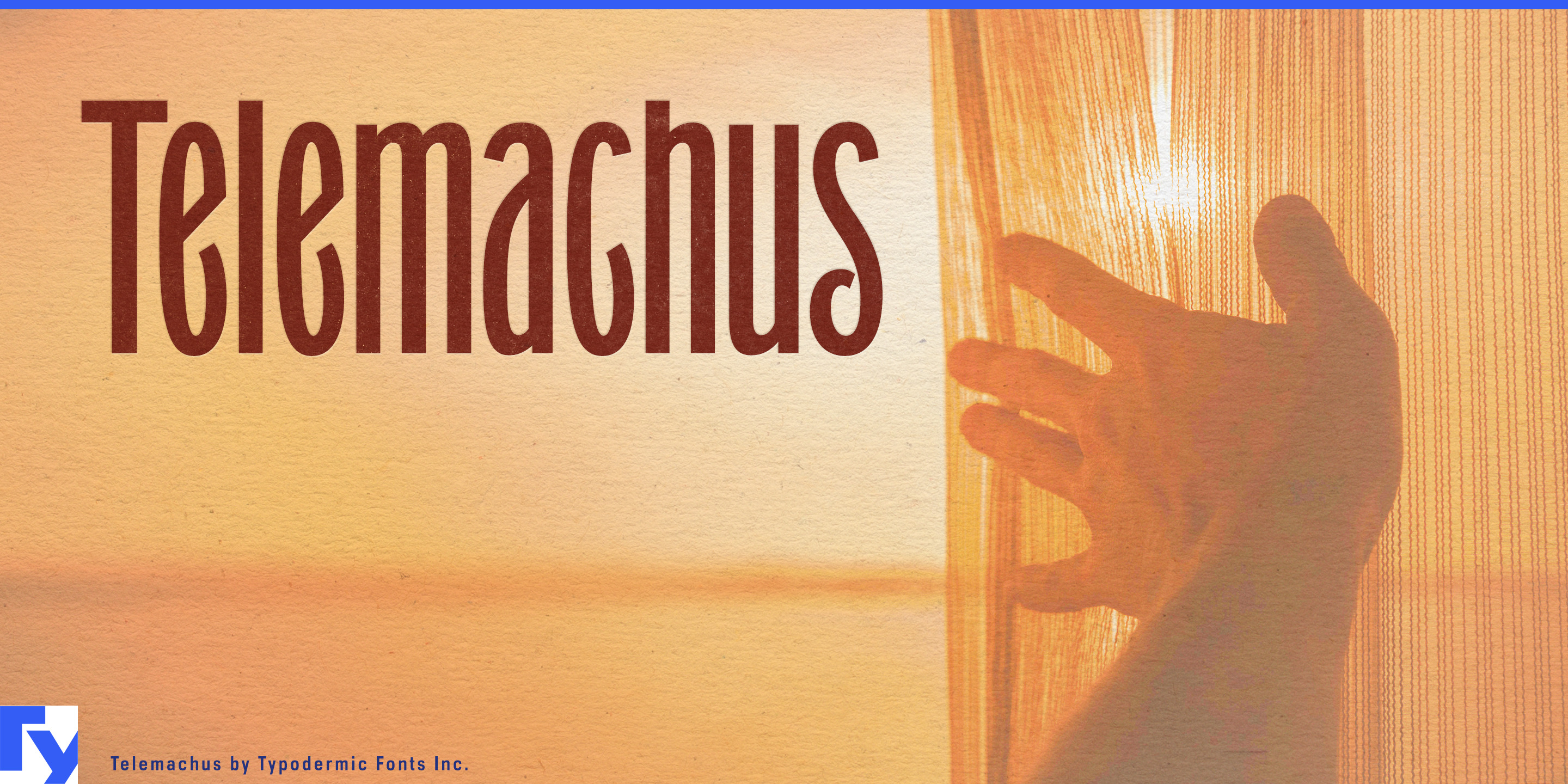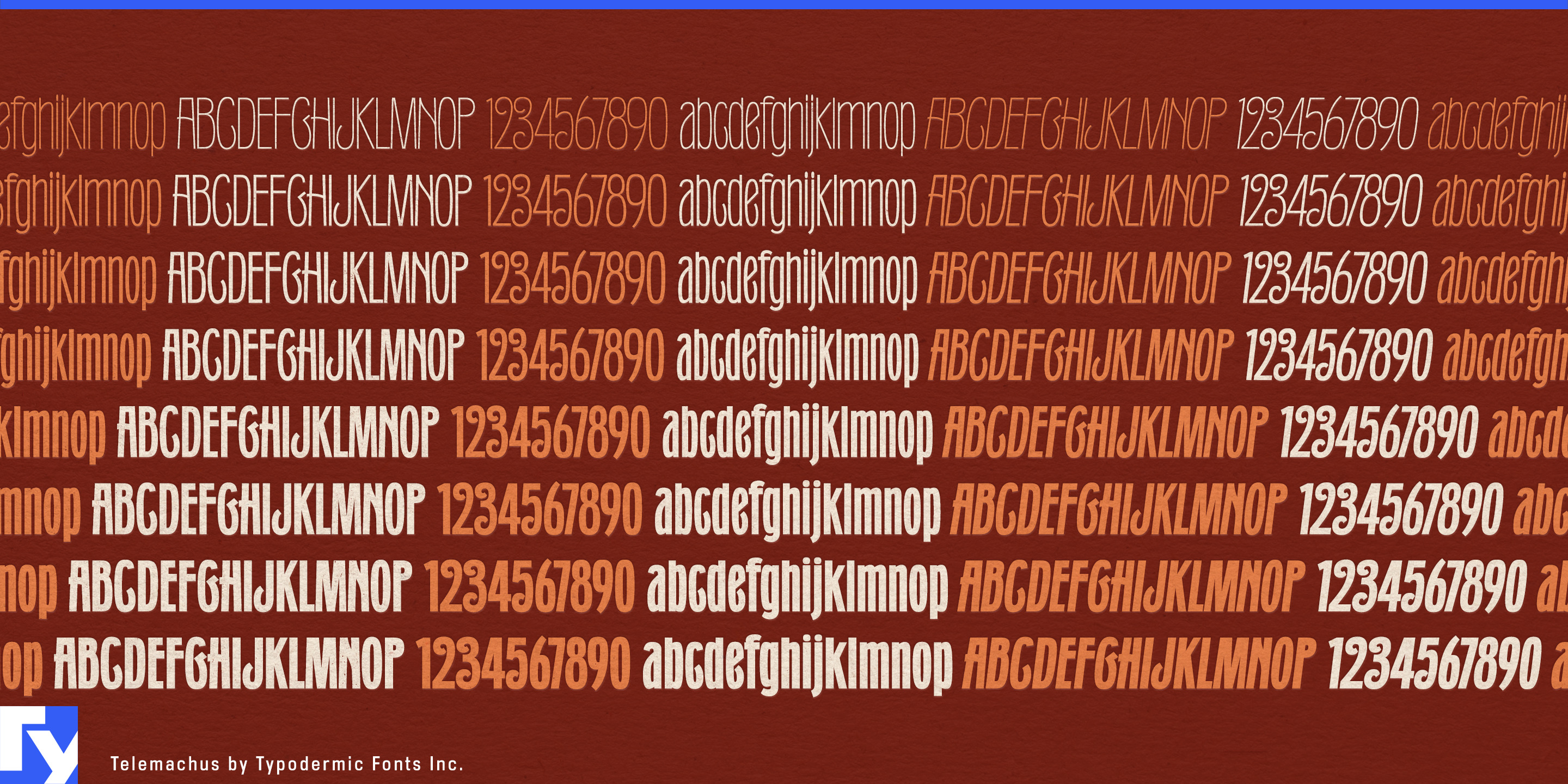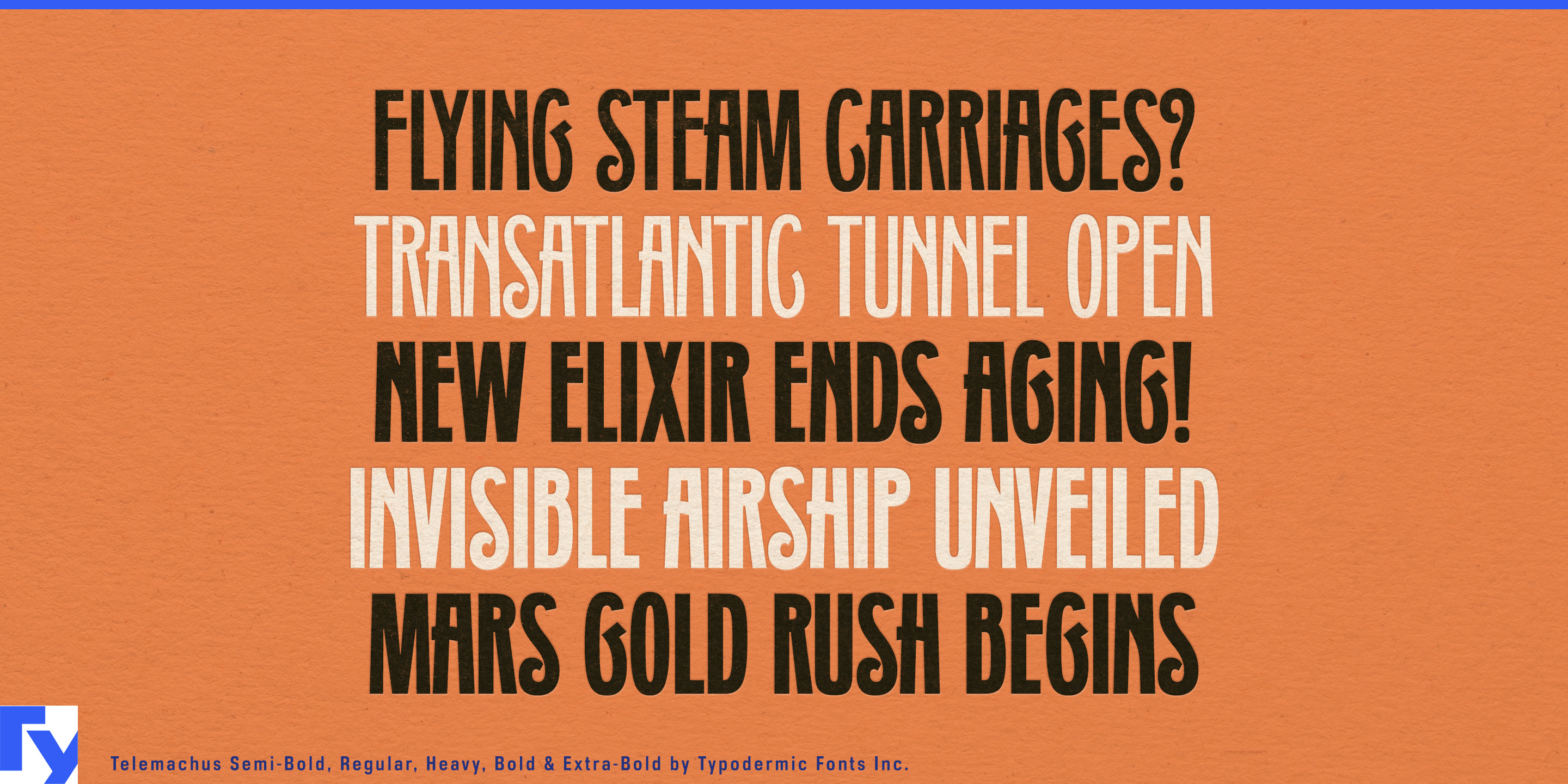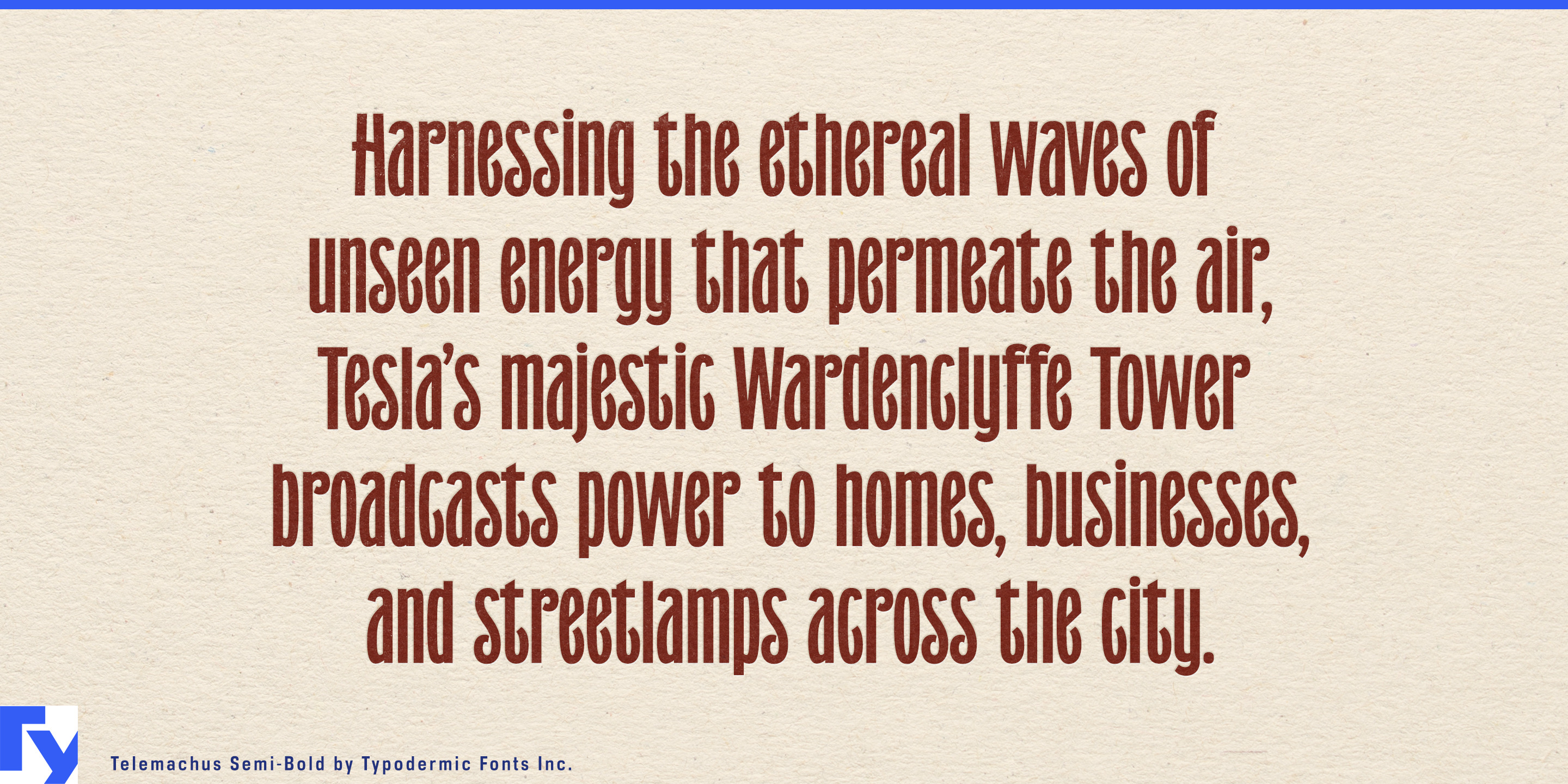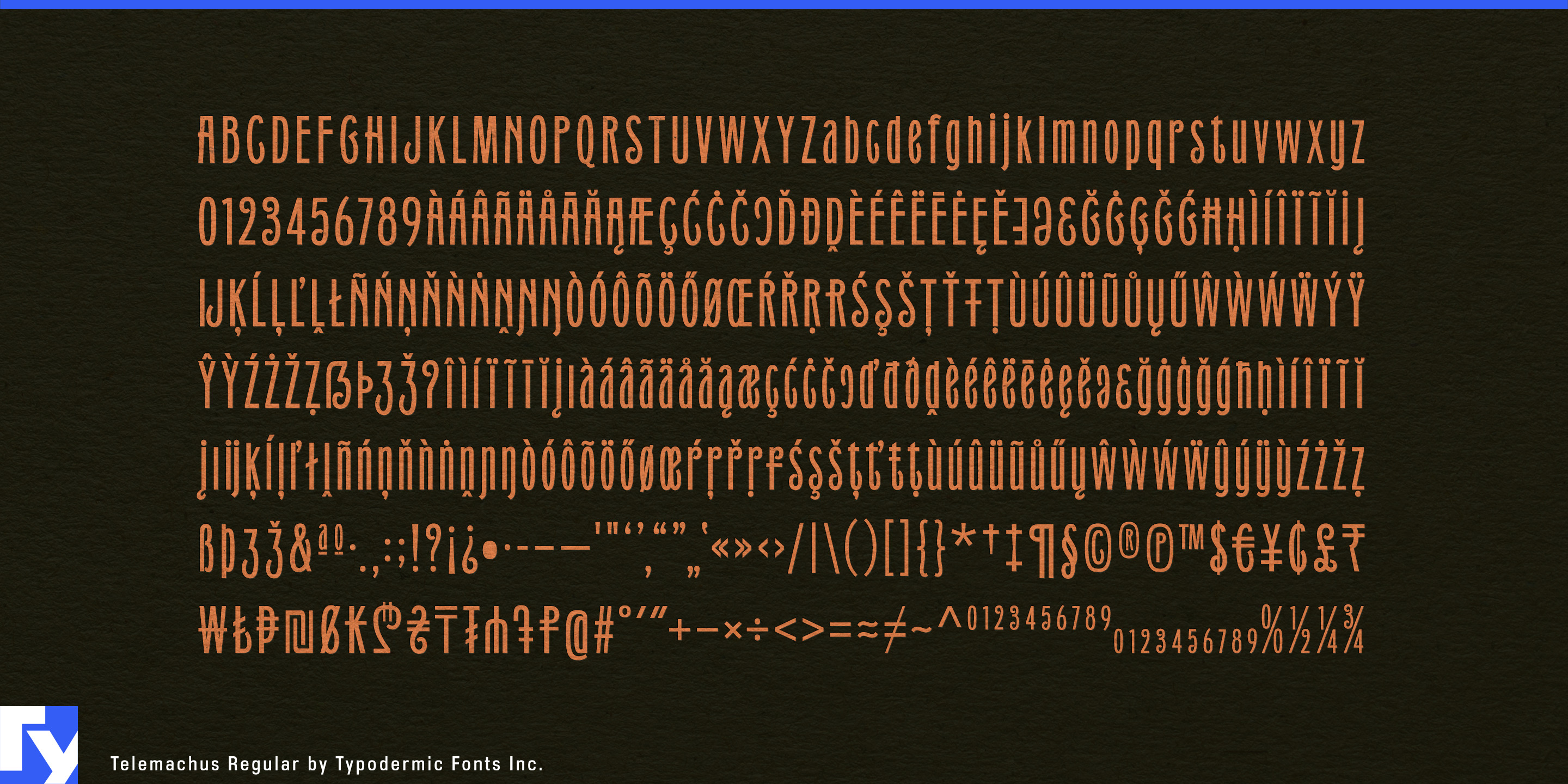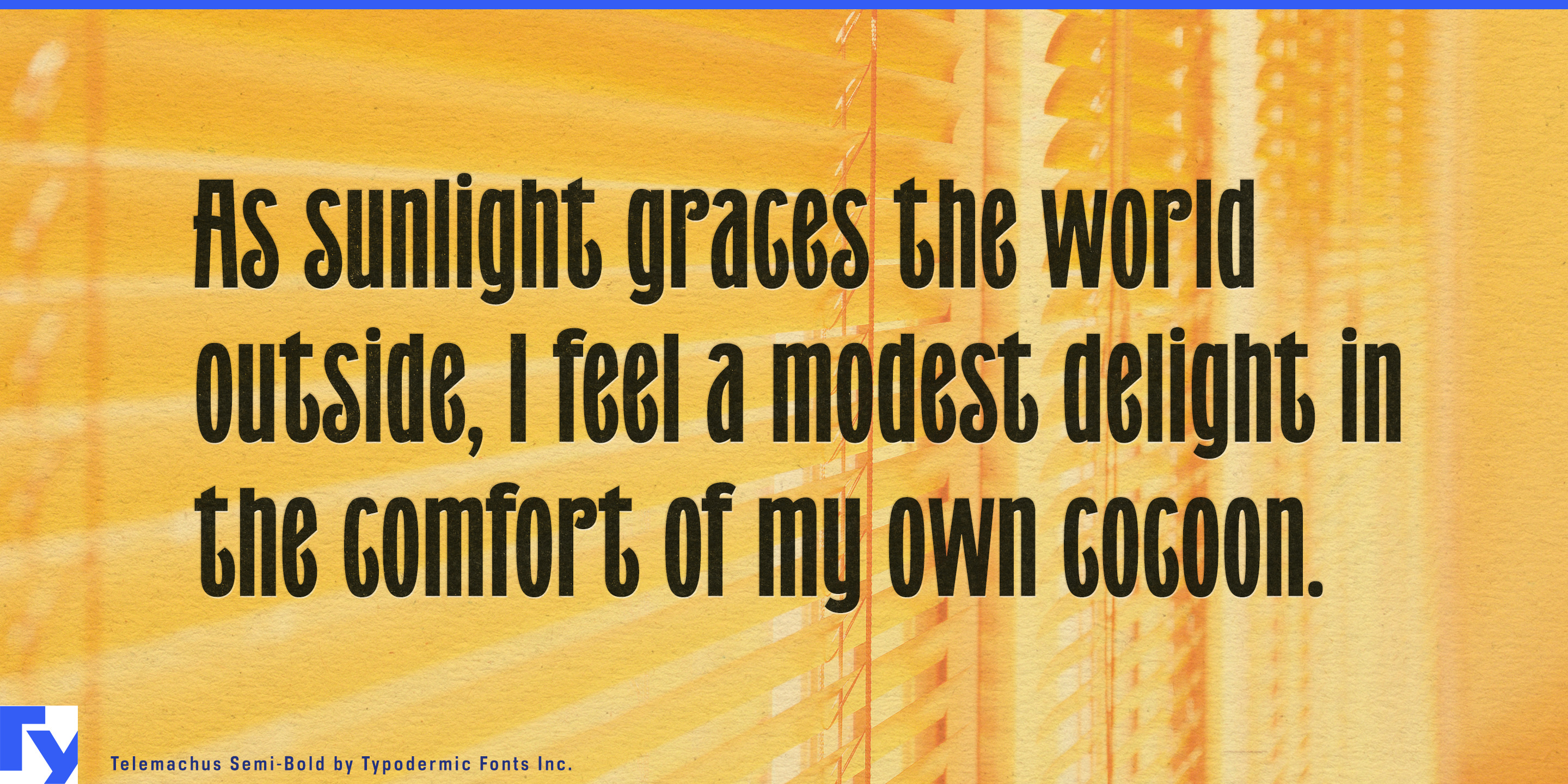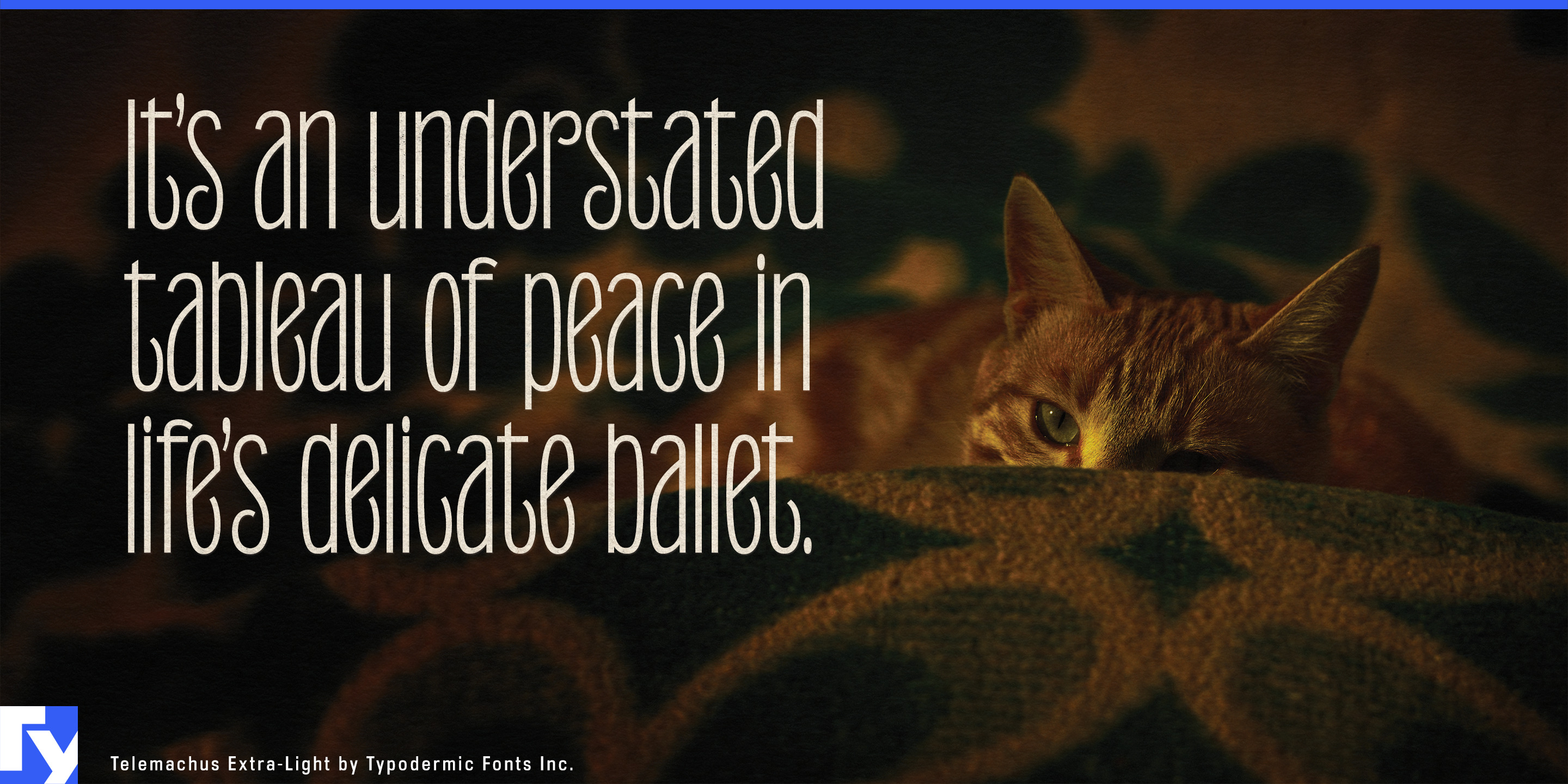
Telemachus
A long product name on a narrow package creates an awkward choice. Set it large and it wraps around the sides; compress it with a conventional condensed sans and the result can look industrial, athletic, or generically modern. Telemachus offers another option: an extremely narrow display face with enough old commercial character to become part of the identity rather than merely solve a fitting problem.
That makes Telemachus particularly useful for beauty and personal-care packaging, where tall containers provide abundant vertical space but only a narrow front-facing area. Deodorant and sunscreen sticks, body sprays, dry shampoo, styling aerosols, serum and moisturizer pumps, shampoo and conditioner bottles, hand lotion, liquid soap, and salon dispensers can carry surprisingly long names at substantial sizes. The lighter weights bring a wiry elegance to skincare and fragrance-adjacent products; heavier styles give haircare, sun care, and body products more visual weight.
Slim beverage cans pose much the same problem. Botanical sodas, functional sparkling drinks, canned tea, cold brew, electrolyte drinks, premium mixers, and non-alcoholic aperitifs all benefit from lettering that can occupy the available height without sprawling around the cylinder. Telemachus brings more historical warmth than the usual condensed sports or tech typography, making it particularly useful for botanical and tonic-style products.
The same proportions work across hotel and spa amenity systems: wall-mounted shampoo and body-wash bottles, hand-soap and lotion pumps, treatment products, bath supplies, and room sprays. Refillable home-care products such as hand soap, dish soap, linen spray, and fabric treatments can use the same vertical labeling logic.
Telemachus also earns its keep wherever horizontal space genuinely disappears: narrow storefront piers, column-mounted tenant names, vertical retail panels, food-hall stalls, exhibition graphics, and constrained architectural signage. Its old commercial flavor can sit comfortably in renovated market halls, historic hotels, and adaptive-reuse spaces without becoming a literal period reproduction.
The design traces back to Grant No. 2, the typeface seen on the cover of Carole King’s Tapestry. That ancestry gives Telemachus an unusual relationship with time. Depending on the context, it can read as antique, mid-century, or strangely futuristic. New transit, clean-energy infrastructure, civic technology, alternative-history entertainment, and retrofuturist exhibitions can use that ambiguity to present progress without defaulting to sleek geometric “future” typography.
Telemachus solves a contemporary spatial problem with a voice that refuses to disappear into utility: long words, narrow surfaces, and a distinctive old-commercial character that can move from a sunscreen stick or salon spray can to a slim botanical drink, hotel dispenser, or vertical shopfront.